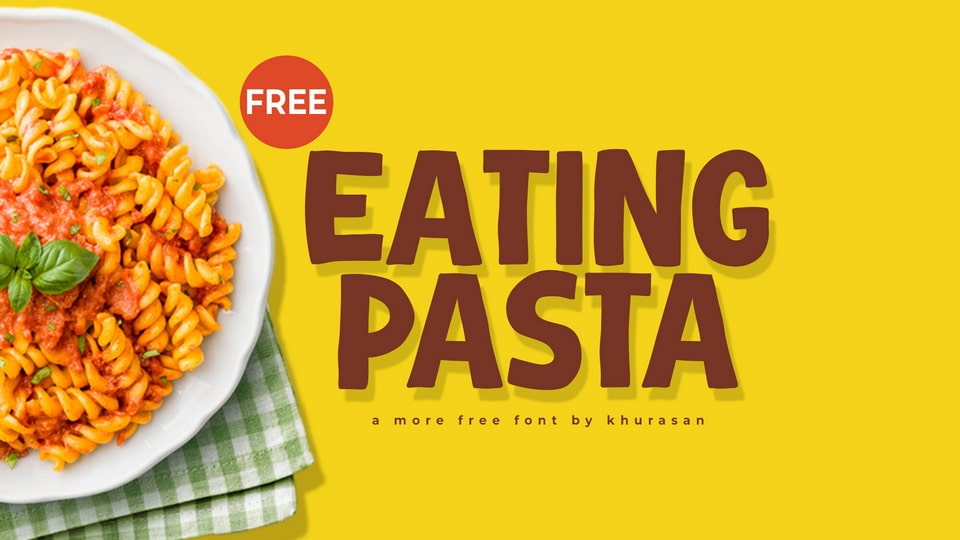
Download Eating Pasta font, a blocky and quirky hand-drawn typeface bursting with personality and charm. Its bold, irregular shapes and playful imperfections give it a lively, organic feel.